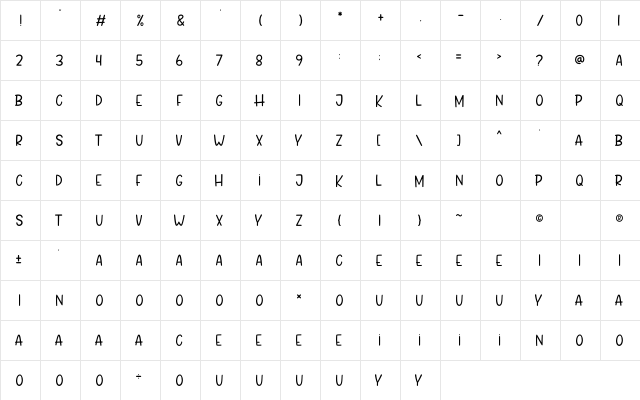
Tropical Paradise Regular
| Foundry | Nirmala Creative |
| Designer | Risma |
Design Context for Tropical Paradise Typeface
Tropical Paradise takes a measured approach to typography — its balanced proportions and neutral character make it a reliable workhorse for both digital and print work.